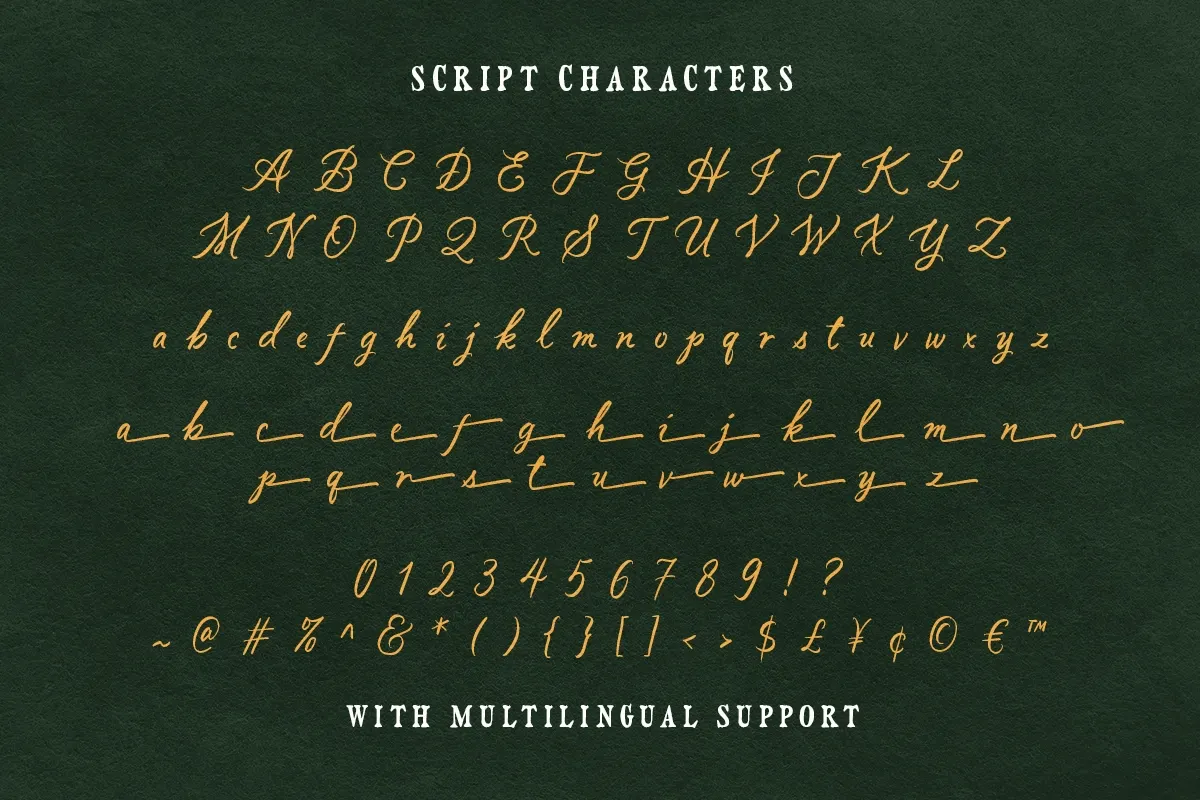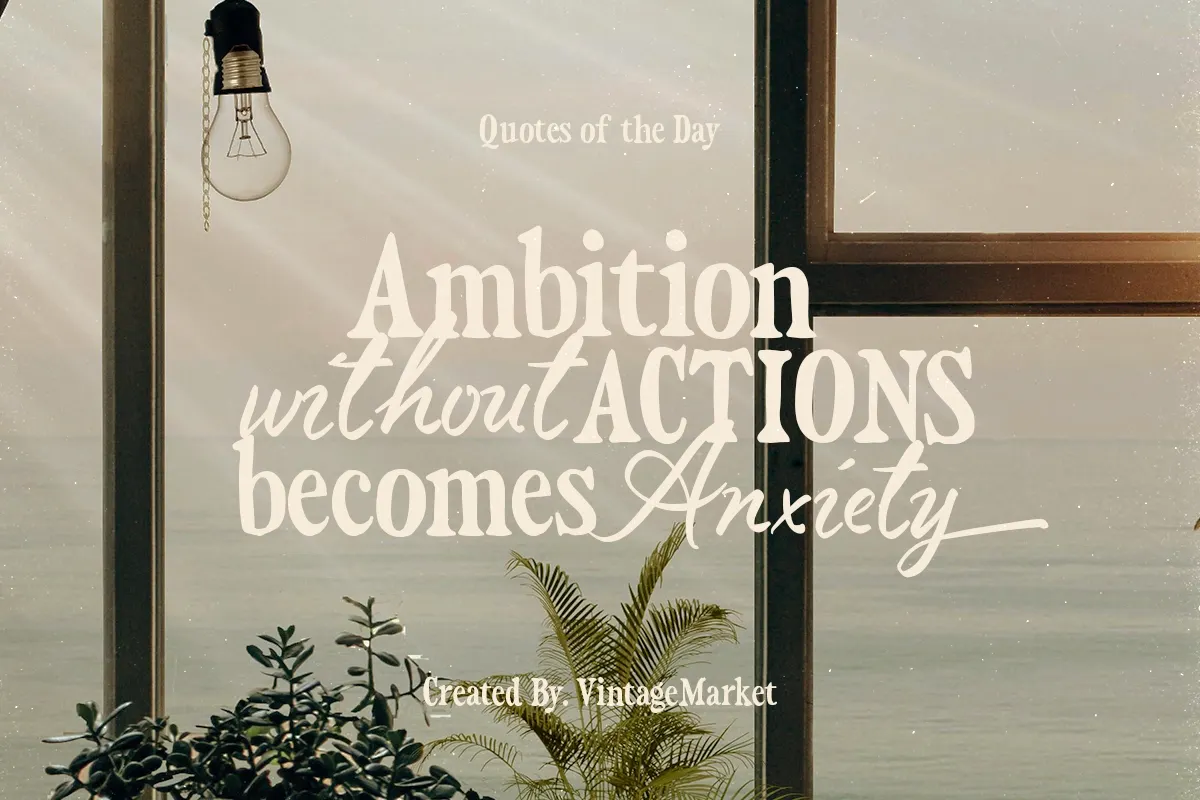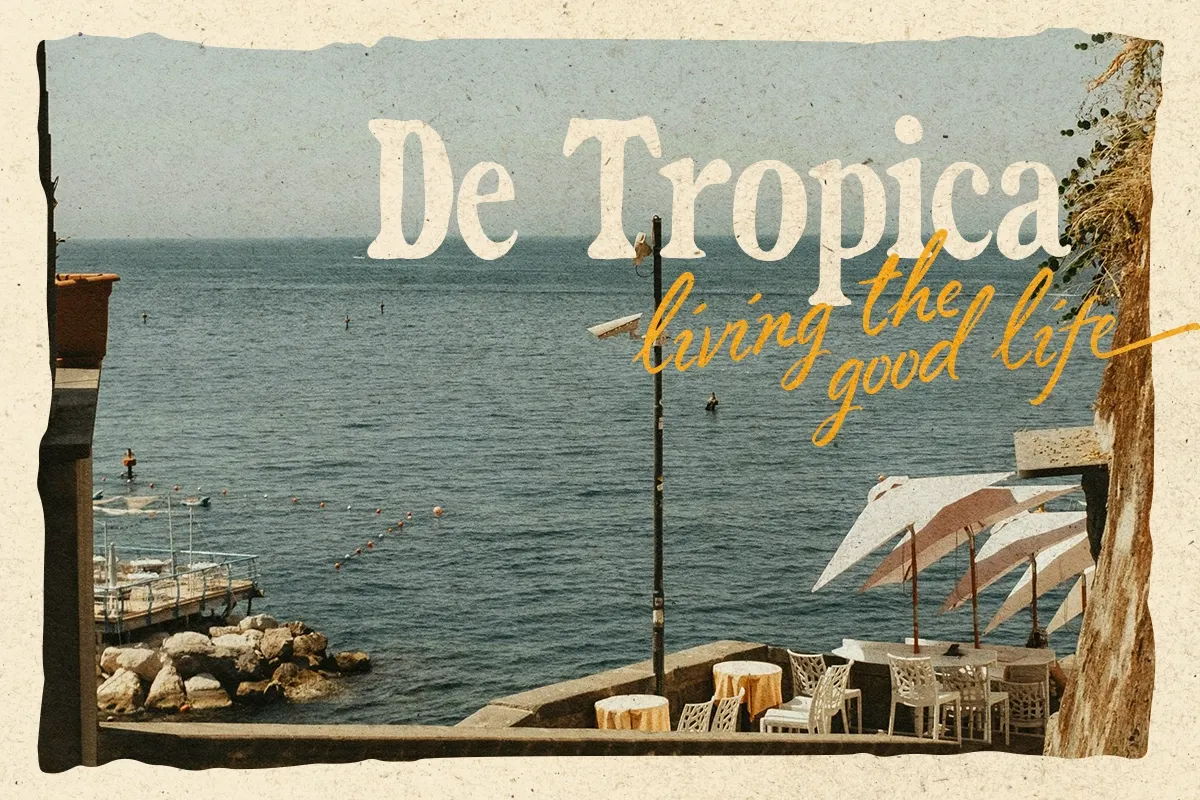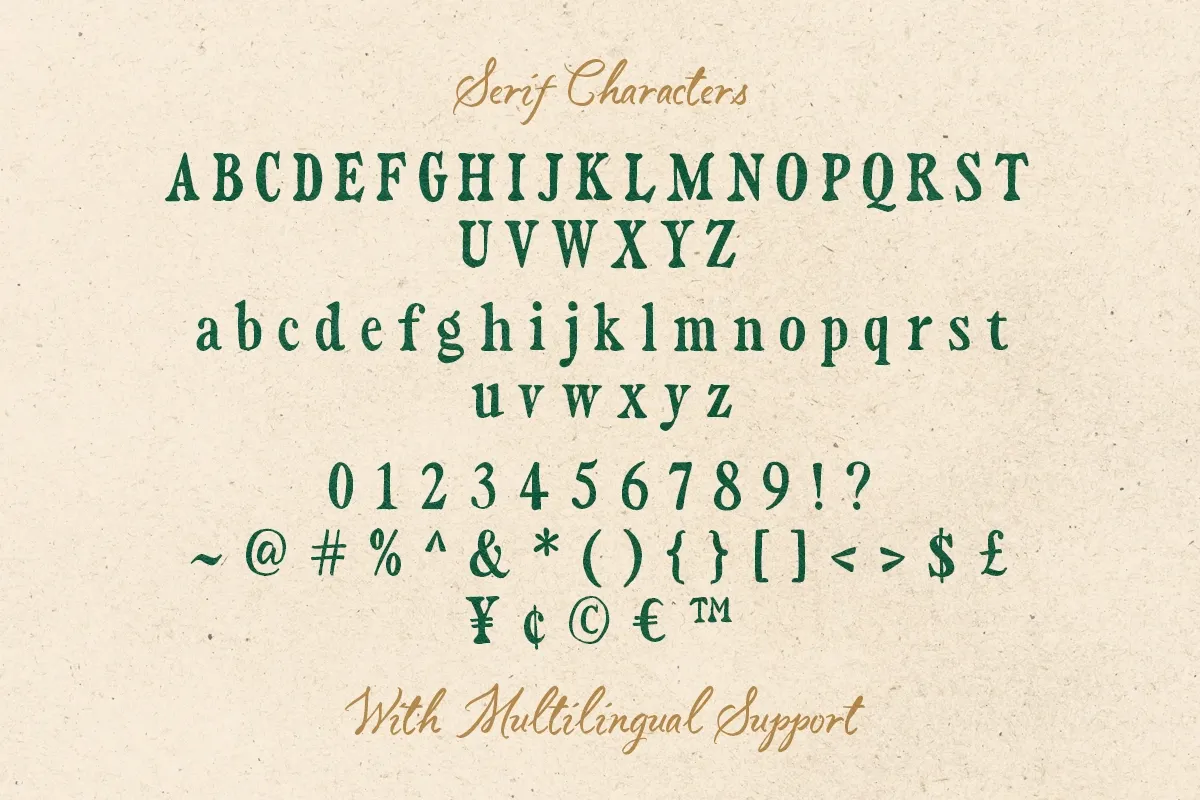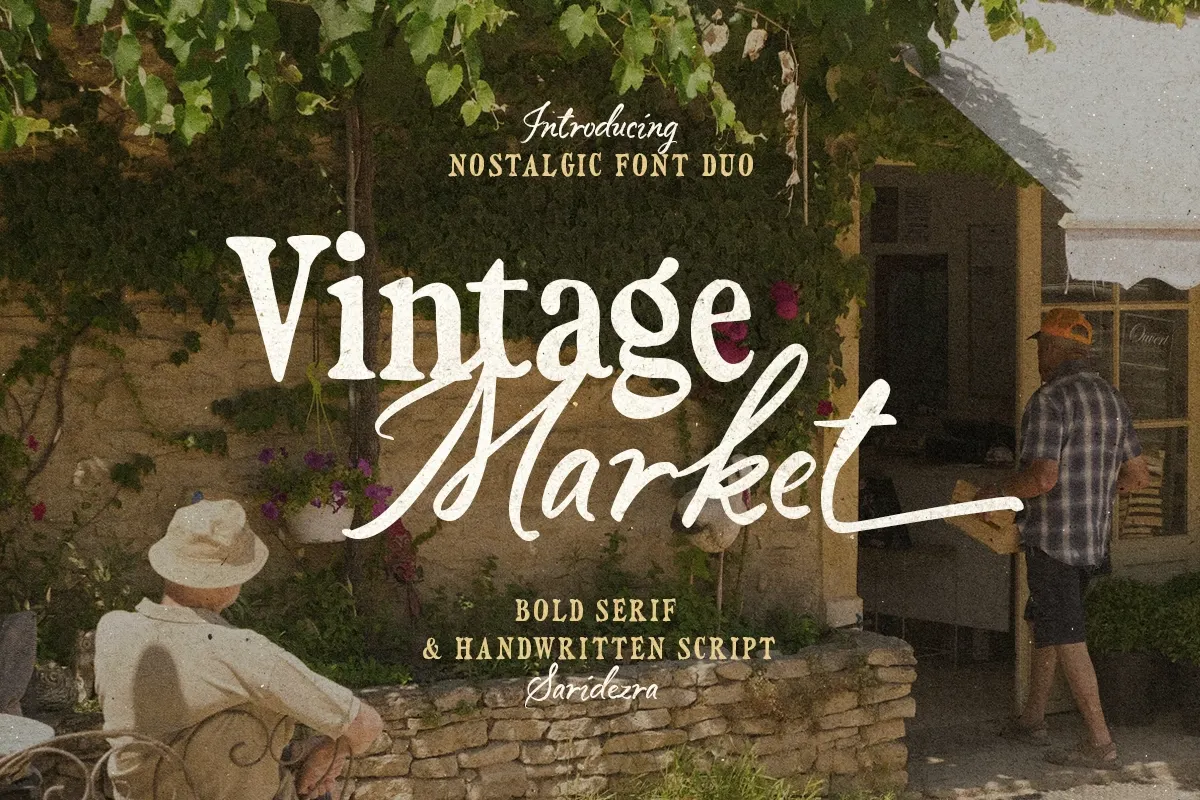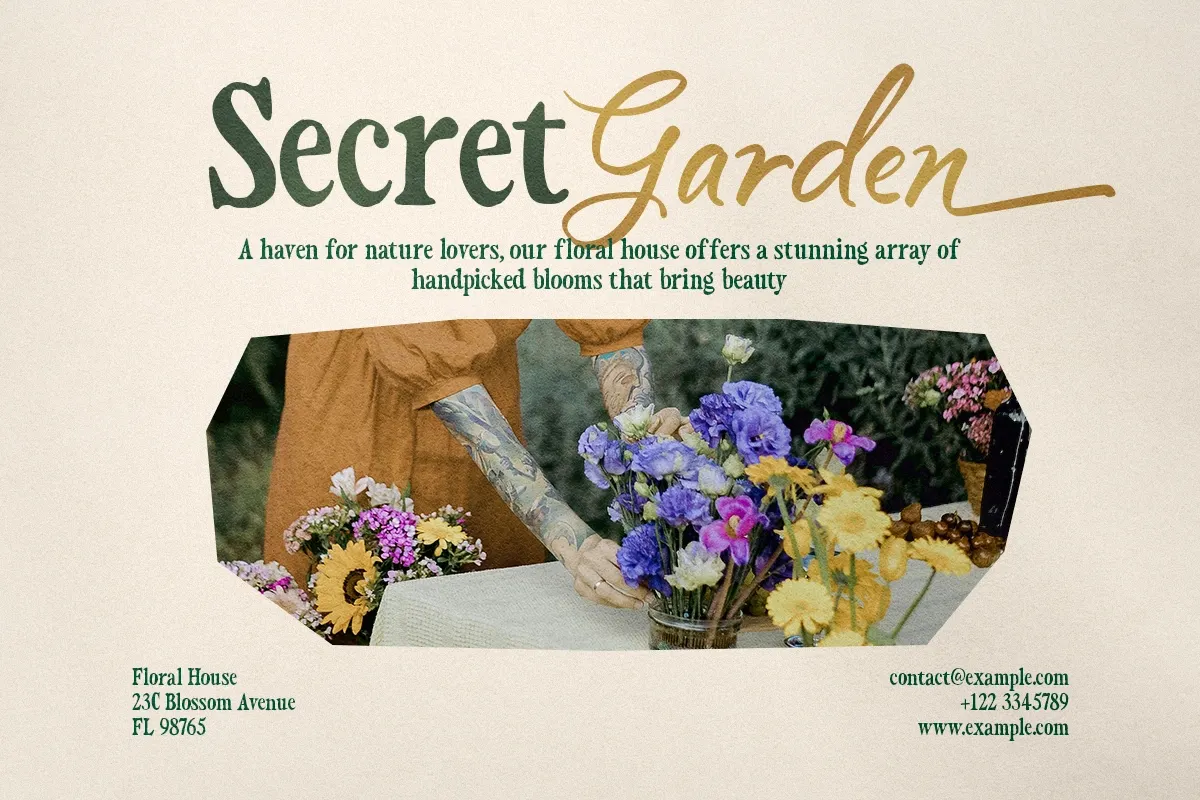
Vintage Market - Nostalgic Font Duo
Vintage Market – Nostalgic Font Duo is a charming handcrafted typeface combination that blends a bold vintage serif with an elegant handwritten script. Designed to capture the warmth and character of classic typography, this duo brings a nostalgic atmosphere to any creative project.
The serif font delivers strong, timeless letterforms inspired by traditional signage and vintage print, while the script style adds a soft, personal touch with flowing strokes and expressive alternates. Together they create a balanced pairing that feels authentic, warm, and visually engaging.
Perfect for projects that need a retro, artisanal, or heritage-inspired aesthetic, Vintage Market works beautifully for branding, packaging, posters, quotes, labels, and lifestyle designs. The included ending alternates in the script font allow for more dynamic and natural-looking lettering compositions.
- Serif & Handwritten Script font duo
- Uppercase & Lowercase characters
- Numbers, punctuation & symbols
- Script ending alternates